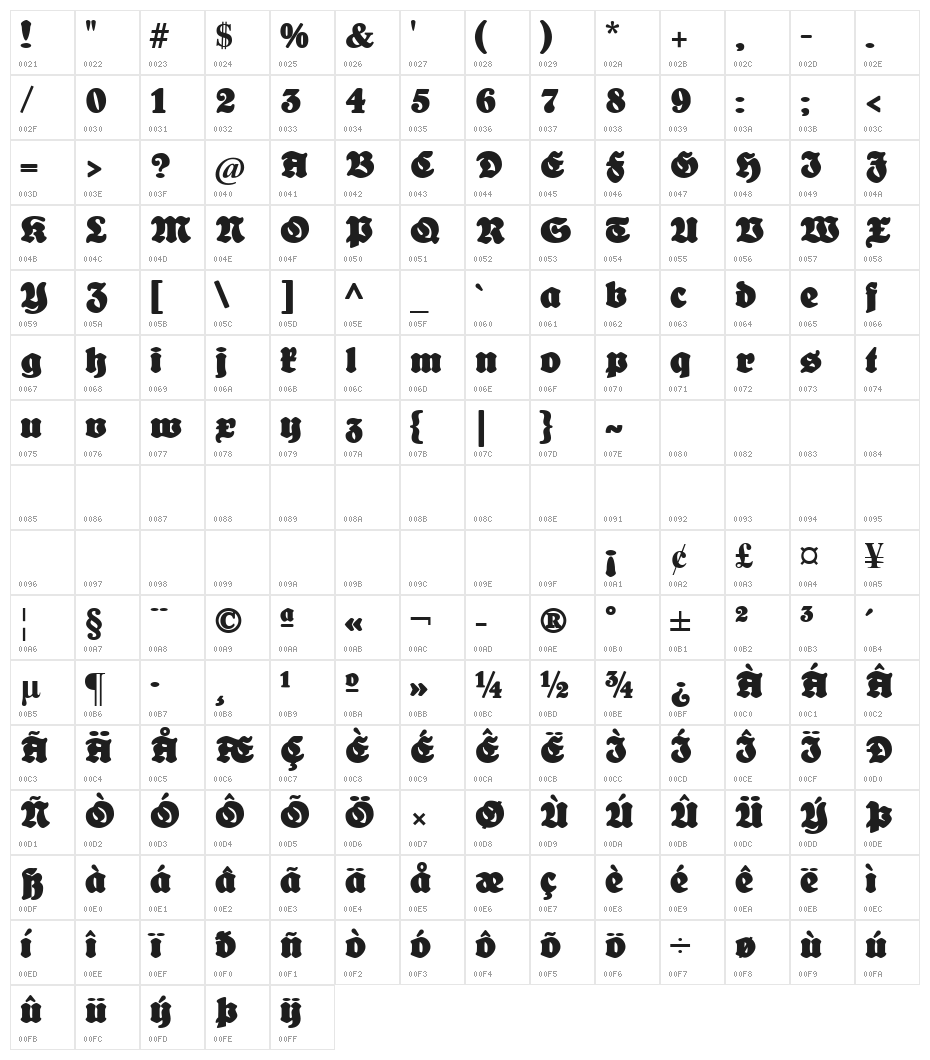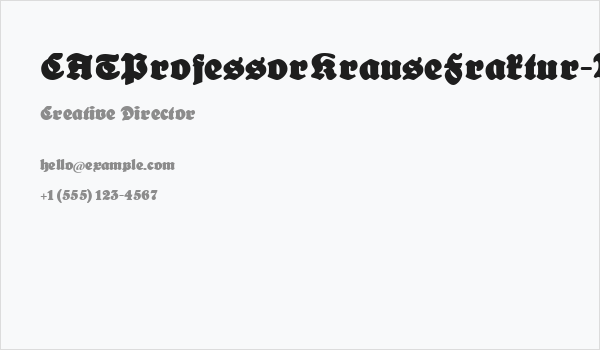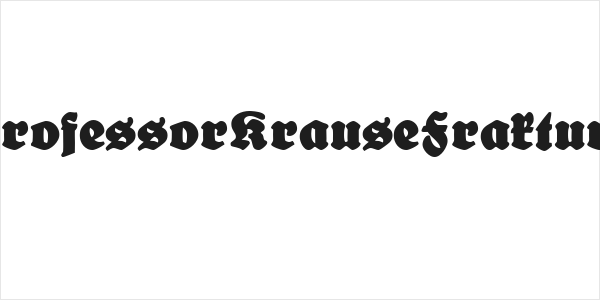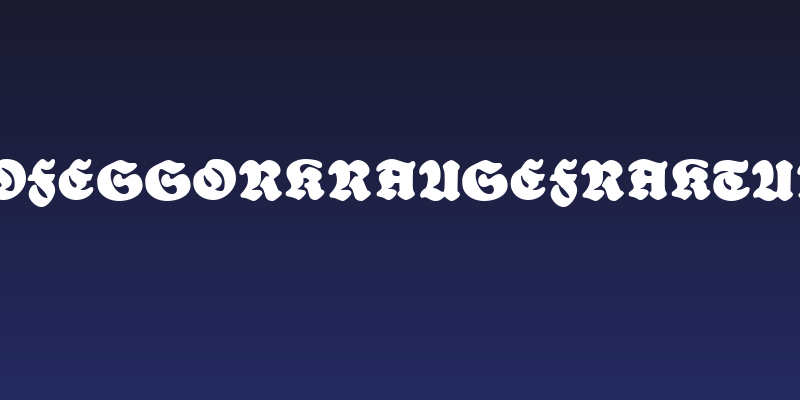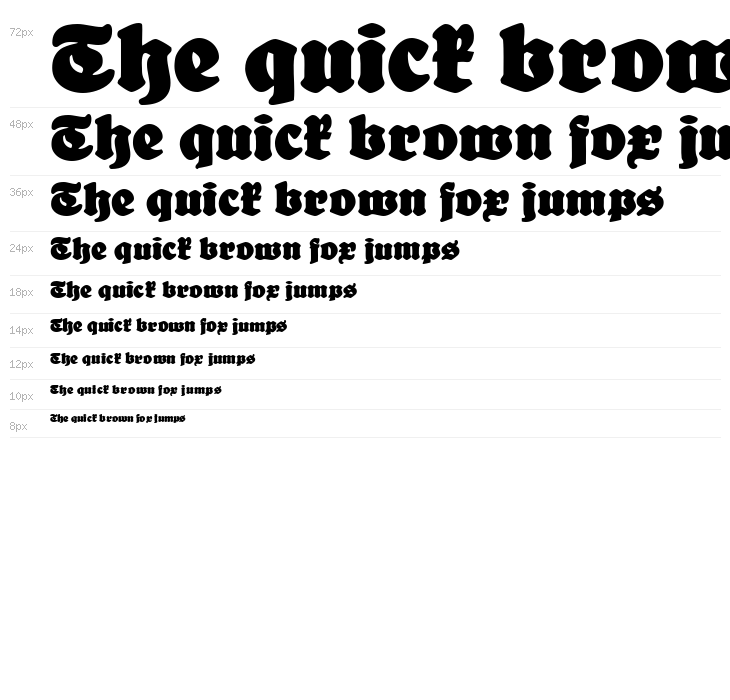
CATProfessorKrauseFraktur-Bold Font
CATProfessorKrauseFraktur-Bold Description
This font exhibits a traditional blackletter style, characterized by its bold and intricate letterforms. The uppercase letters are ornate with sharp, angular lines and decorative flourishes, while the lowercase letters maintain a consistent style with a slightly more rounded appearance. The numerals are bold and distinct, matching the overall aesthetic. Special characters are designed with the same attention to detail, ensuring a cohesive look across all glyphs. This font's historical and dramatic appearance makes it suitable for projects requiring a touch of elegance and tradition.
| Proposed Projects | Ideal for certificates, invitations, historical documents, branding for luxury products, and decorative signage. |